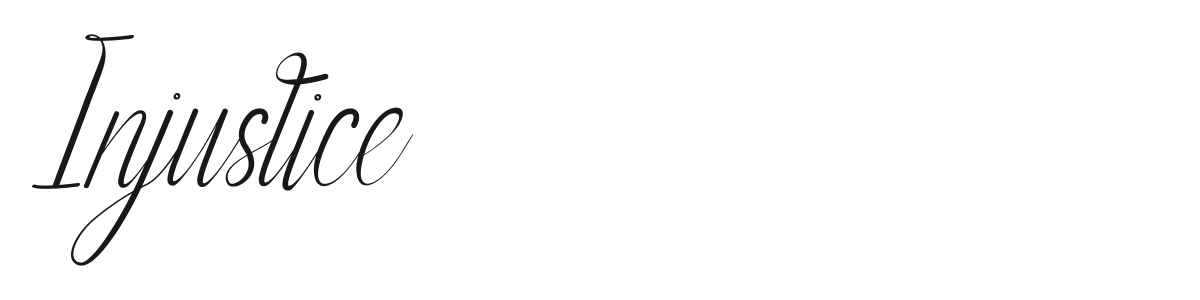
Injustice
by Noah Type · Website
Injustice is a high-contrast formal script with the flowing, looped elegance of classic copperplate penmanship. Hairline upstrokes weave between weighted downstrokes, creating a rhythm that feels both handcrafted and refined. It carries the kind of restrained ornament that works in wedding stationery, luxury branding, and editorial headlines.